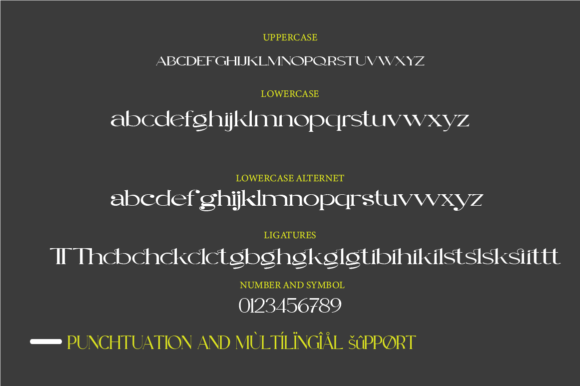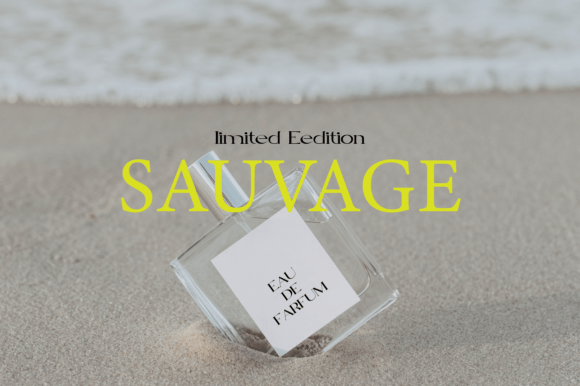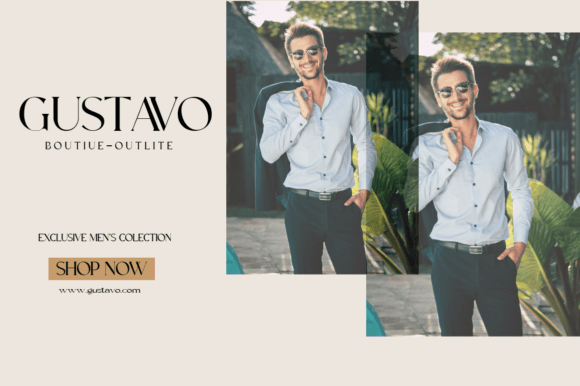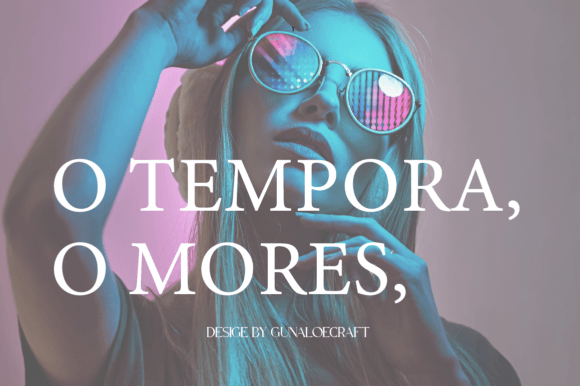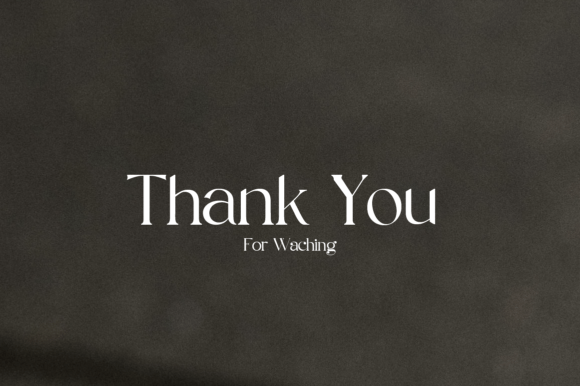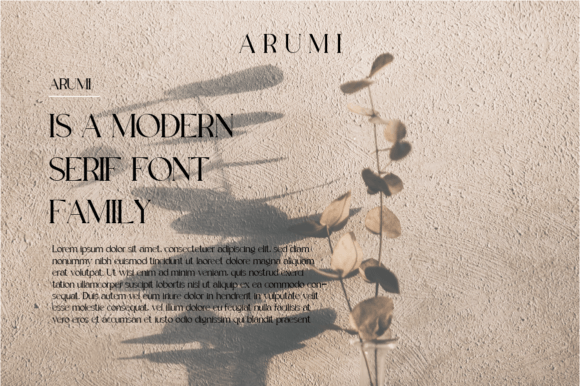
The Perfect Blend of Elegance and Modernity: Arumi Font
As a designer, have you ever found yourself staring at a blank page, searching for the perfect font to bring your vision to life? The struggle is real, but fear not, for we have discovered the solution – Arumi Font. This modern serif font is a game-changer, offering a perfect blend of elegance and sophistication that will elevate your designs to new heights.
With its wide range of applications, from magazine headers to clothing and packaging, Arumi Font is the ultimate design tool. Its versatility and stylish flair make it an ideal choice for fashion-related branding, editorial design, and digital projects. Whether you’re a seasoned pro or a budding designer, Arumi Font is sure to impress and make your designs stand out from the crowd.
- Unique Characteristics: The font features a unique blend of modern and traditional elements, with a distinctive x-height and a subtle flair at the terminals, making it perfect for branding and editorial design.
Arumi Font Review
I recently had the chance to work with Arumi Font, and I must say it’s a unique and intriguing choice. The font’s eclectic mix of modern and vintage elements makes it stand out from the crowd. ✨
The font’s versatility shines through in its various weights and styles, which can be used for a wide range of applications, from headlines to body text. The designer has also included a range of language support, making it suitable for global projects.
- Unique blend of modern and vintage elements
- Highly versatile with various weights and styles
- Good language support for global projects
However, there are some limitations to consider. The font may not be the best choice for projects that require a more neutral or traditional font style. Additionally, the font’s irregularities can sometimes make it difficult to read, especially at smaller font sizes.
- May not be suitable for projects with traditional or neutral font requirements
- Can be difficult to read at smaller font sizes due to irregularities
Overall, Arumi Font is a great choice for designers who want to add a touch of personality and flair to their projects. While it may not be the best choice for every project, it’s definitely worth considering for those that require a unique and eye-catching font.